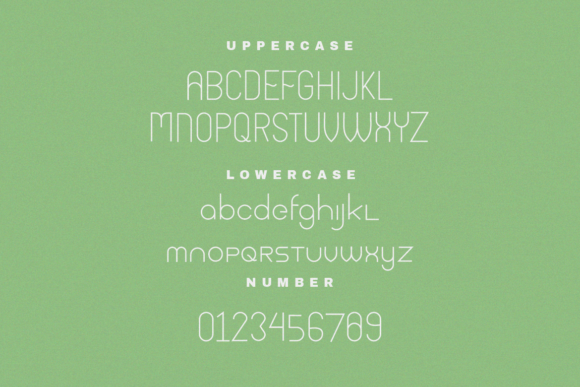
Introducing Culture Font: The Modern and Clean Sans Serif for Your Designs
Are you tired of using the same old fonts in your designs? Look no further! Culture Font is here to revolutionize the way you create. This modern and clean sans serif font is designed to bring a fresh and neat vibe to your projects. With its versatility and endless variations, Culture Font is the perfect addition to your typography collection.
What Makes Culture Font Stand Out?
Culture Font is a sans serif font that exudes modernity and sophistication. Its clean lines and minimalist design make it perfect for a wide range of applications, from branding and advertising to packaging and digital media. Whether you’re a designer, craftsperson, or DIY enthusiast, Culture Font is sure to become your go-to choice for creating stunning visual content.
Key Features of Culture Font
- Modern and Clean Design: Culture Font boasts a sleek and contemporary design that’s perfect for creating fresh and eye-catching visuals.
- Versatility: With its wide range of applications, Culture Font can be used for everything from logos and headings to body text and captions.
- Endless Variations: Experiment with different font sizes, colors, and styles to create unique and personalized designs.
- Easy to Read: Culture Font’s clear and legible design ensures that your text is easy to read, even at small font sizes.
Benefits of Using Culture Font
- Unique and Professional Look: Culture Font helps you create designs that stand out from the crowd and look professional.